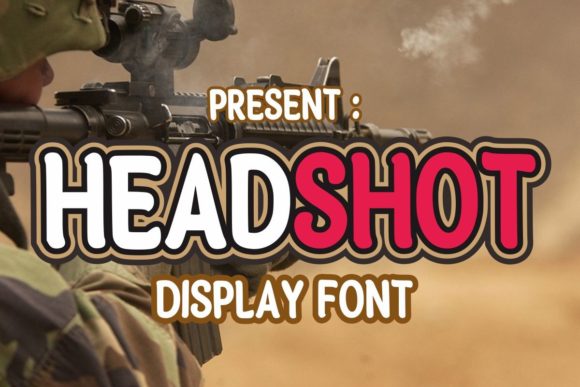
Welcome to the world of Headshot, a display font that oozes coolness, originality, and readability. Crafted by the talented artisans at Infinity Art Studio, Headshot is not just another font; it's a captivating journey into the realm of creative expression.
Headshot is not merely a collection of letters and symbols; it's an experience that transforms your designs into visually stunning masterpieces. Its clean lines, bold strokes, and distinctive character make it the perfect choice for a wide range of projects, from casual crafts to professional presentations.
Imagine creating eye-catching church signs that captivate your congregation, leaving an everlasting impression of faith and unity. Headshot's bold presence and easy-to-read style ensure that every message is conveyed with clarity and impact.
But Headshot's versatility doesn't stop there. Unleash your creativity in the vibrant world of social media, where Headshot's unique charm adds a touch of personality to your posts, stories, and ads. Make your digital designs shine with Headshot's bold and captivating presence, guaranteed to leave a lasting impression on your audience.
For those who dwell in the realm of digital artistry, Headshot is your perfect companion. Its crisp lines and distinct character lend themselves effortlessly to presentations, adding a touch of sophistication and professionalism. Whether you're presenting a groundbreaking business idea or sharing your latest travel adventures, Headshot elevates your content to new heights.
And let's not forget the joy of crafting personalized greeting cards. With Headshot, your heartfelt messages take on a life of their own, conveying emotions with a depth that mere words cannot express. From birthday wishes to anniversary greetings, Headshot adds a touch of warmth and sincerity to every occasion.
So, why settle for ordinary fonts when you can unleash the extraordinary with Headshot? Its versatility, readability, and undeniable charm make it the perfect choice for any project, big or small. Embrace the power of Headshot and watch your creative visions come to life with stunning clarity and captivating style.